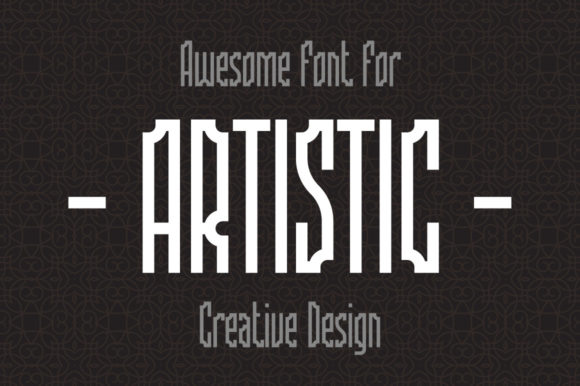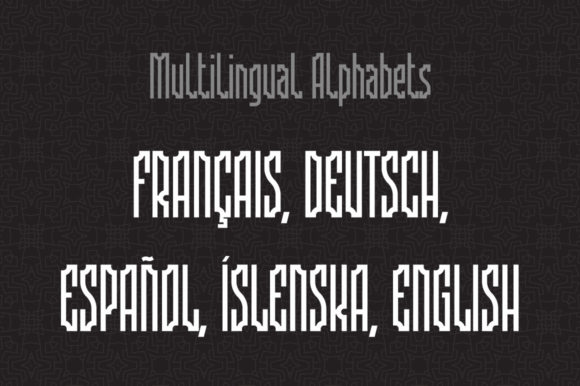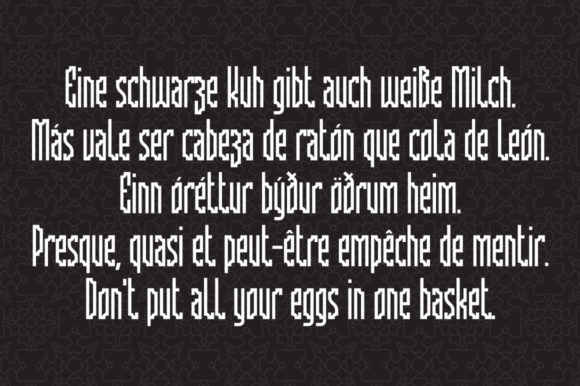
Introducing Arthign Font: The Ultimate Display Font for Modern Designs
In the world of typography, fonts play a crucial role in making or breaking a design. A well-chosen font can elevate your project from ordinary to extraordinary. If you’re a designer, craftsperson, or simply a DIY enthusiast, you’re likely always on the lookout for unique and versatile fonts to add a touch of personality to your creations. That’s where Arthign Font comes in – a cool, robotic, and unique display font that’s perfect for adding a dynamic touch to your web designs, business cards, and more.
What is Arthign Font?
Arthign Font is a modern, display font designed to make a statement. Its sleek, robotic lines and futuristic aesthetic make it an ideal choice for designs that require a bold and eye-catching touch. Whether you’re creating a website, logo, business card, or social media graphic, Arthign Font is the perfect choice for adding a touch of sophistication and style.
Key Features of Arthign Font
- Unique and Modern Design: Arthign Font boasts a one-of-a-kind design that’s both modern and futuristic. Its robotic lines and geometric shapes make it stand out from more traditional fonts.
- Highly Versatile: This font is perfect for a wide range of design projects, from web designs and business cards to logos, brochures, and more.
- Easily Readable: Despite its futuristic design, Arthign Font is surprisingly easy to read, making it perfect for both headings and body text.
- Scalable: Arthign Font is designed to look great at any size, from small captions to large headings.
Use Cases for Arthign Font
So, what can you use Arthign Font for? The possibilities are endless! Here are a few ideas to get you started:
- Web Design: Use Arthign Font as a heading font for your website, or as a accent font to add a touch of personality to your design.
- Business Cards: Make a bold statement with Arthign Font on your business cards. Its unique design is sure to make you stand out.
- Logos and Branding: Arthign Font is perfect for creating modern, futuristic logos that are sure to grab attention.
- Social Media Graphics: Add a touch of style to your social media graphics with Arthign Font. It’s perfect for creating eye-catching posts and stories.
Why Choose Arthign Font?
With so many fonts to choose from, why should you choose Arthign Font? Here are just a few reasons:
- Unique Design: Arthign Font has a truly unique design that’s sure to make your projects stand out.
- High-Quality: This font is designed with high-quality in mind, ensuring that it looks great in any design.
- Easily Customizable: Arthign Font is easy to customize, allowing you to adjust the font to suit your design needs.
Tips for Using Arthign Font
Here are a few tips for getting the most out of Arthign Font:
- Use it Sparingly: Arthign Font is a bold font, so use it sparingly to avoid overwhelming your design.
- Pair it with a Neutral Font: Pair Arthign Font with a neutral font to create a balanced design.
- Experiment with Colors: Arthign Font looks great in a variety of colors, so don’t be afraid to experiment and find the perfect hue for your design.
| Font Name | Arthign Font |
| Author | yuryfrom |
In conclusion, Arthign Font is a unique and versatile display font that’s perfect for adding a dynamic touch to your designs. Its modern, robotic design makes it an ideal choice for a wide range of projects, from web designs and business cards to logos and social media graphics. With its high-quality design, ease of use, and customizability, Arthign Font is a must-have for any designer or craftsperson looking to elevate their designs.